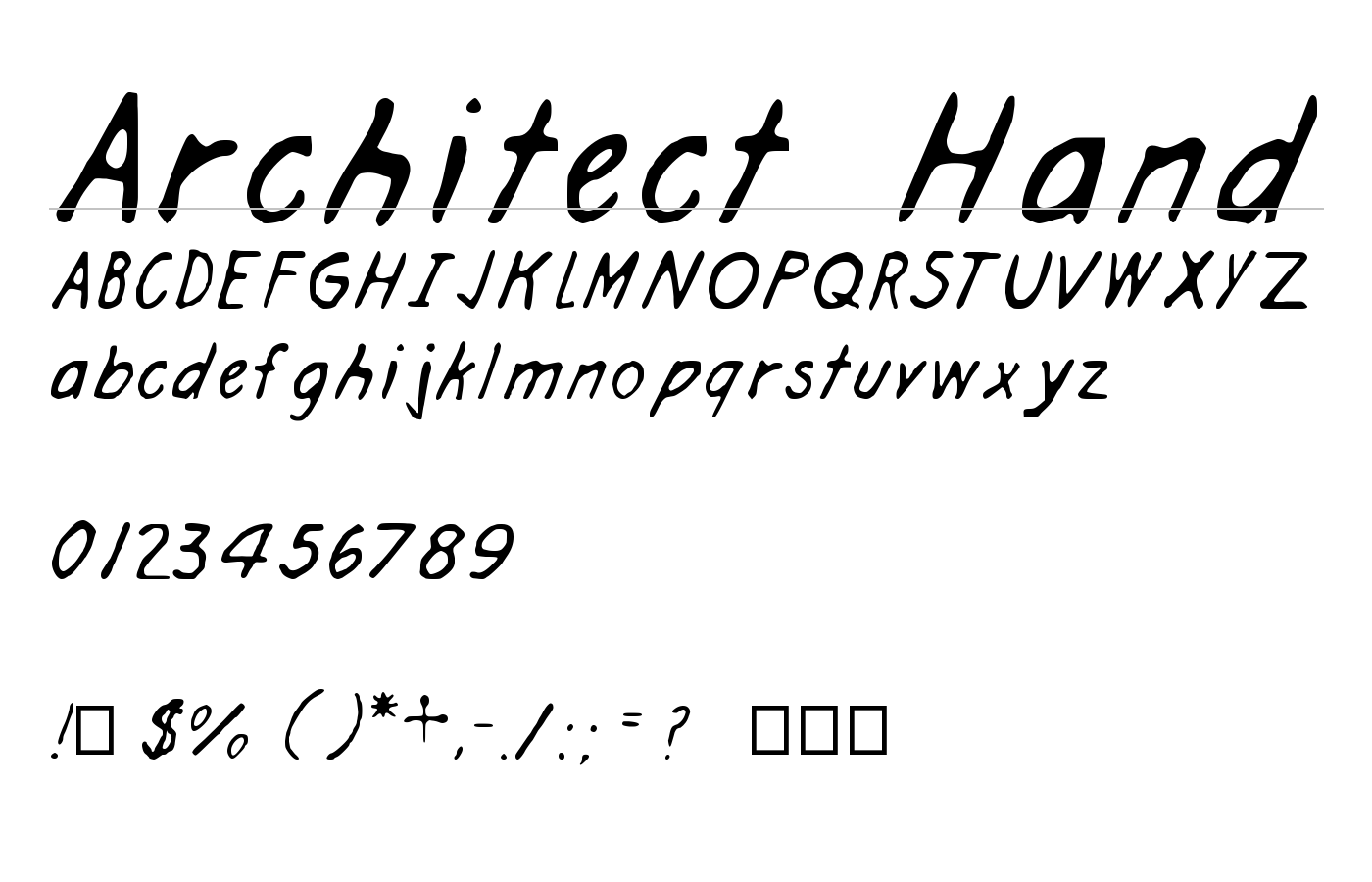
Architect Hand is a casual, handwritten sans serif font with a natural, slightly irregular stroke that mimics authentic penmanship. Its tall, narrow letterforms and uneven baseline create a friendly, approachable feel, making it ideal for creative projects, informal branding, and designs seeking a personal touch. This font works well in headlines, logos, and packaging where a handcrafted, human element is desired.
Architect Hand Font
About Architect Hand Font